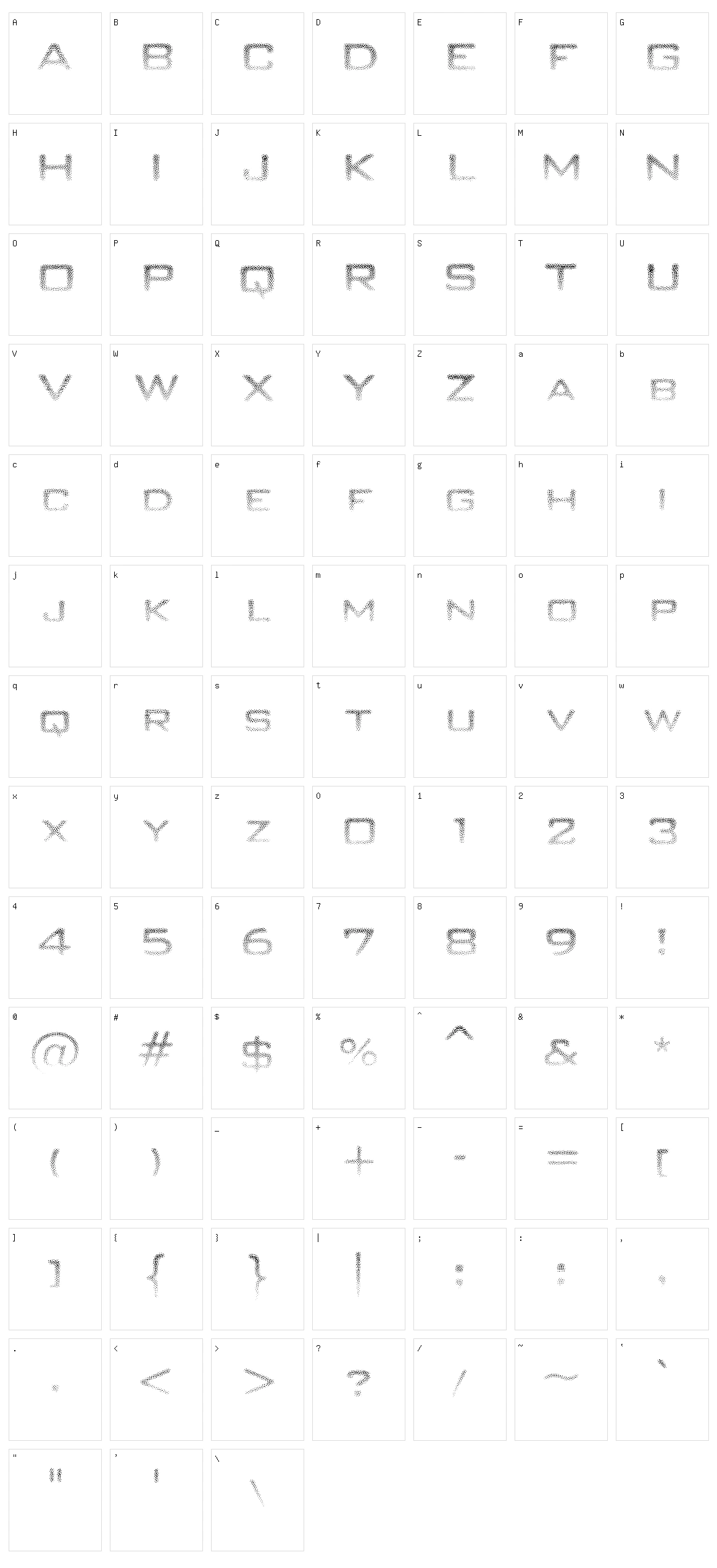
UNITY DANCES
This font is inspired by of a specific artist, a sensual dancer named Unity. My wife and I are fans of her work, and fans of her, personally: she's a positive soul, expressive and open and joyous. Her dancing is celebratory, affectionate, and genuine. She's good company. This font is dedicated to Unity, and to her dance.
Unity dances (and, I suspect, lives) in the moment, and I wanted her font to feel airy and un-tethered, a grounded shape rendered into something freer and more spirited. The base font is the observer, transformed by Unity's dance into a freely swirling pattern of dots, going from light to lighter, feet never quite touching the ground. Even the choice of patterns is very particular; it's based on old acetates used (many years ago) by architects and engineers in graphic presentations ... Unity worked for years in aerospace engineering, and even in her dance, air is the element I associate most with her: purposeful, flowing, more powerful than the eye can tell. Unity is both intellect and spirit.
So, UNITY DANCES is a distressed font (tip of the hat to the immortal Morris Fuller Benton, who, in 1930, created the classic base forms) that isn't so much distressed as transformed, happily ... I hope you enjoy it (and I hope Unity does, too).
ADDENDUM: (Yeah, she does) :) We love you so much, Unity.
UNITY DANCES is a full-keyboard small-caps set (excluding the underscore, for thematic reasons), with a small handful of extra characters (including the Pound Sterling, cent, and Euro symbols). Additional glyphs are available by private commission for licensed users.